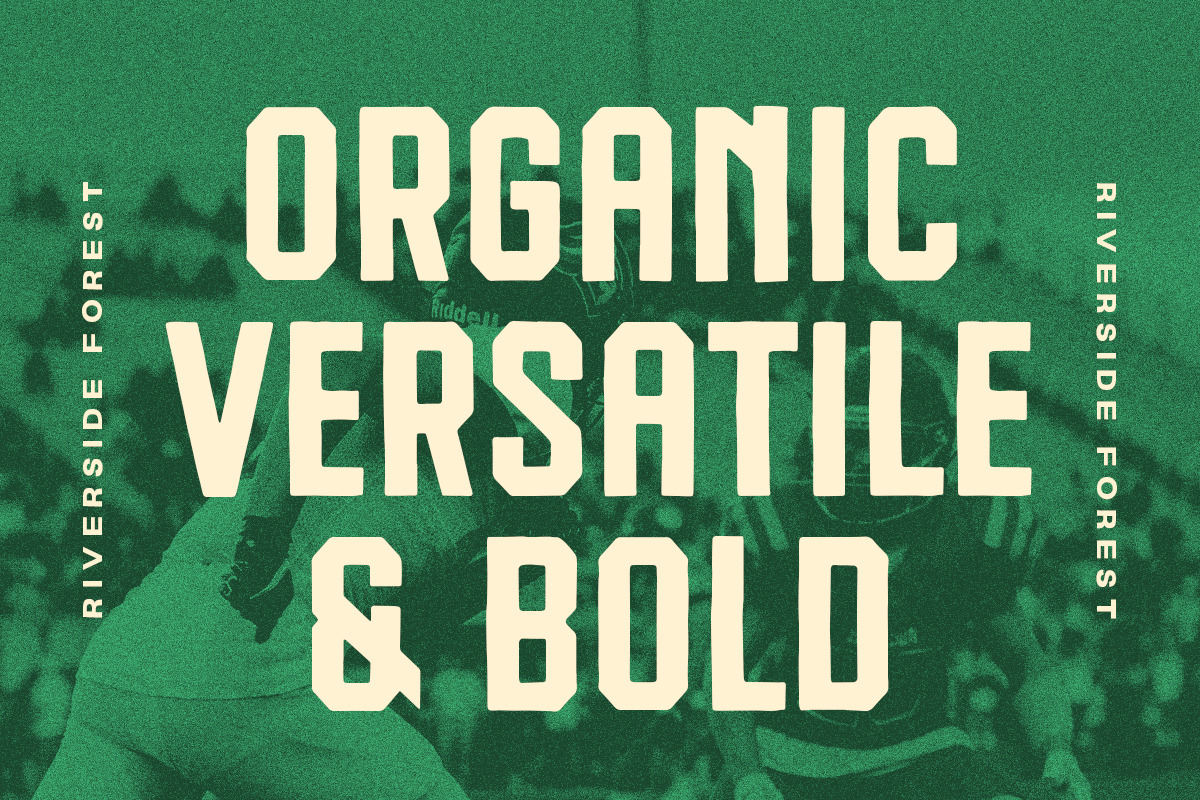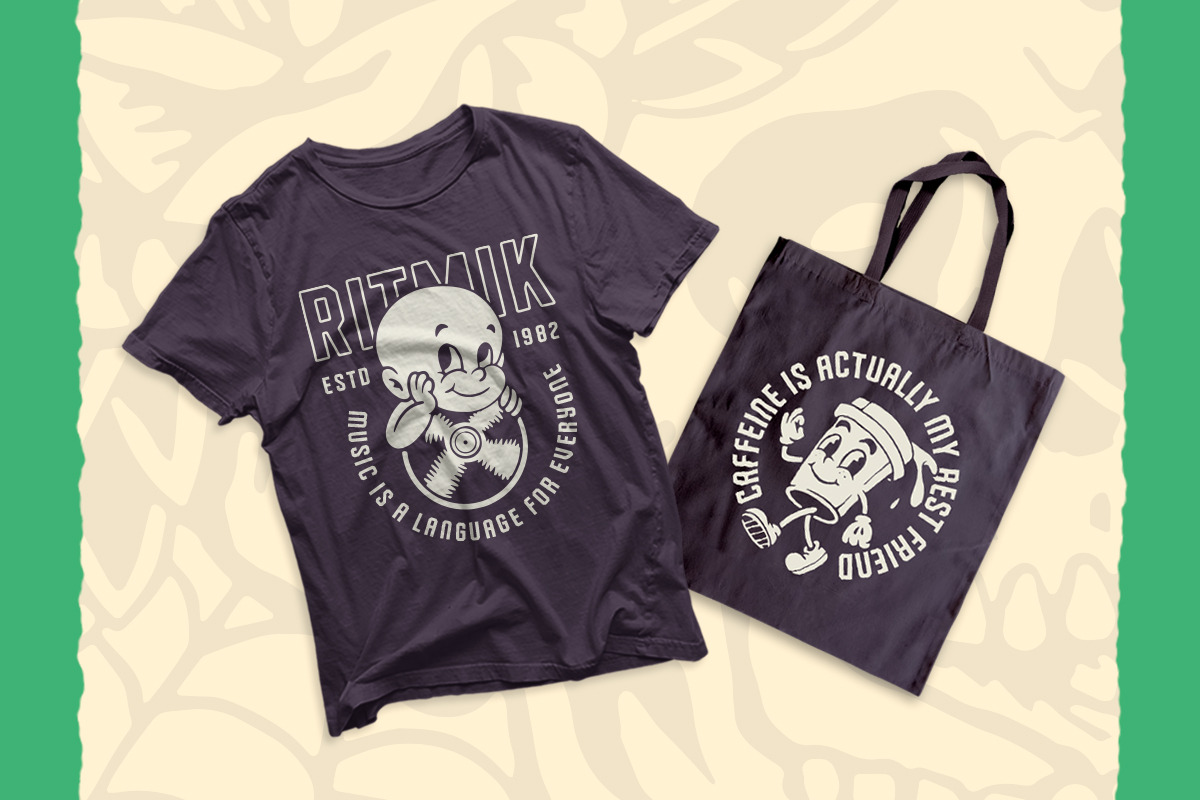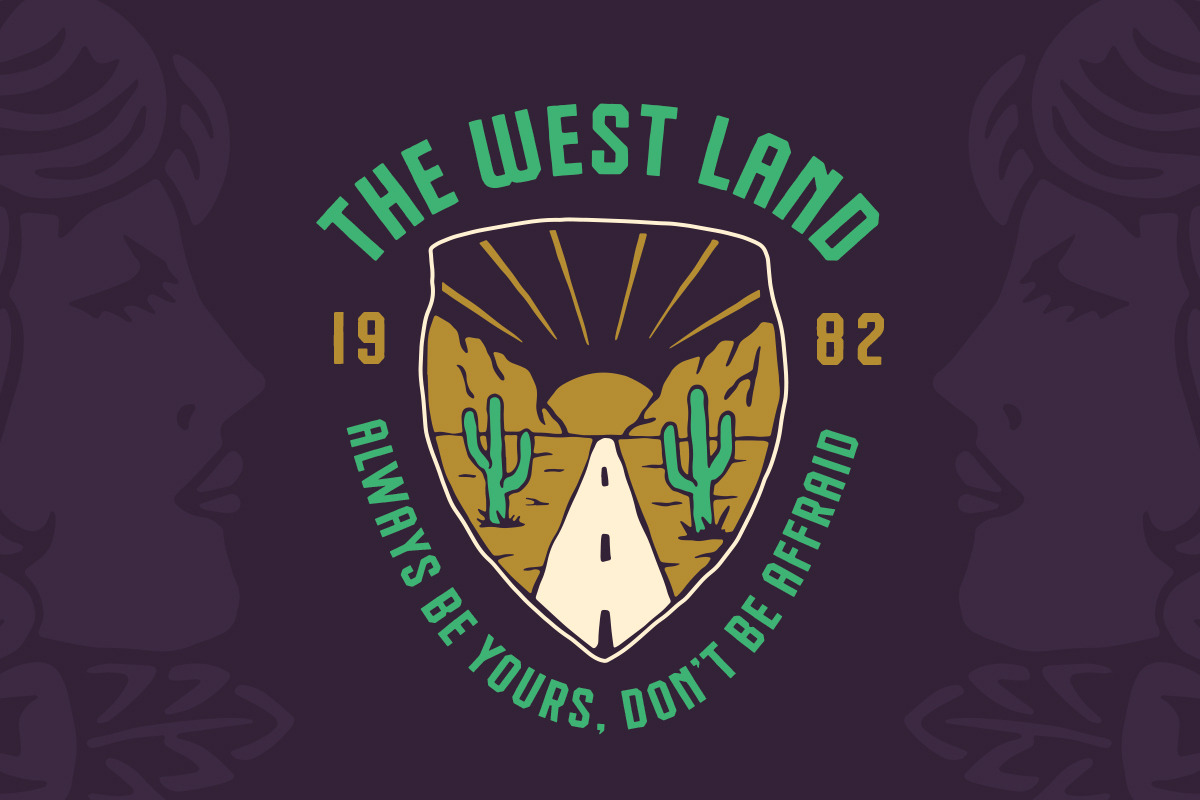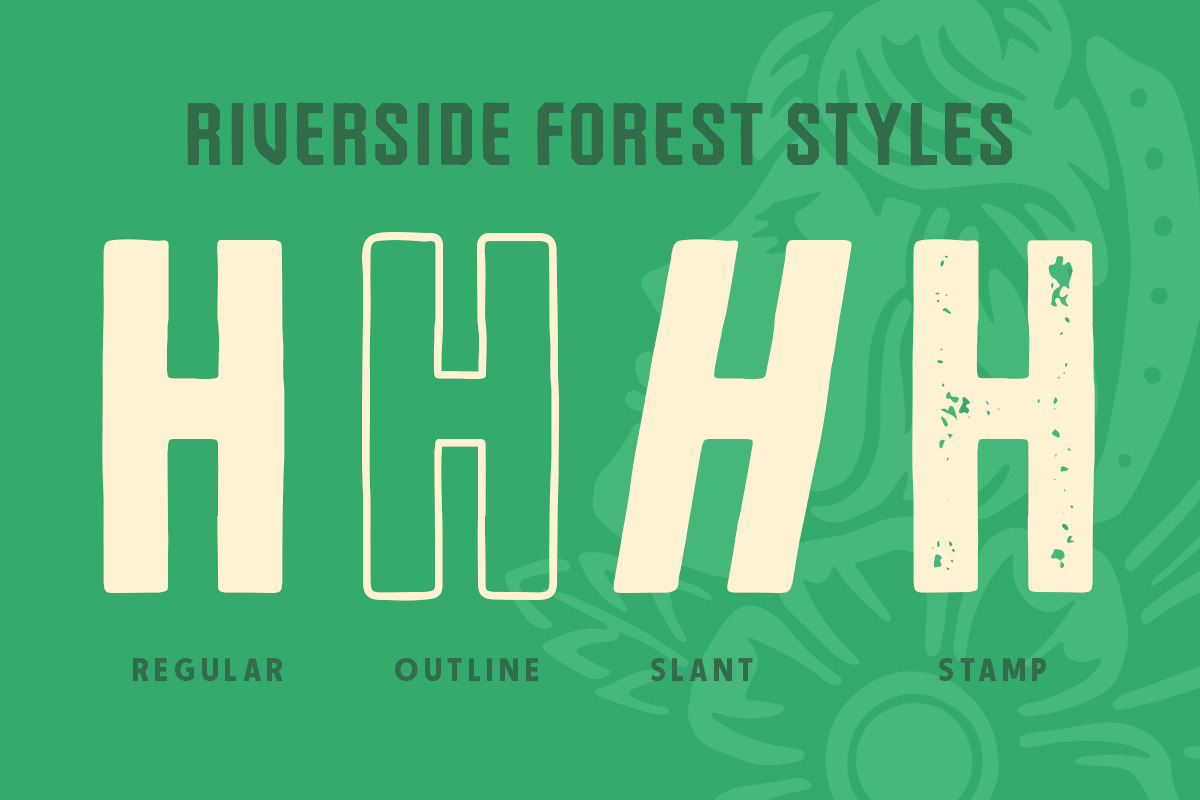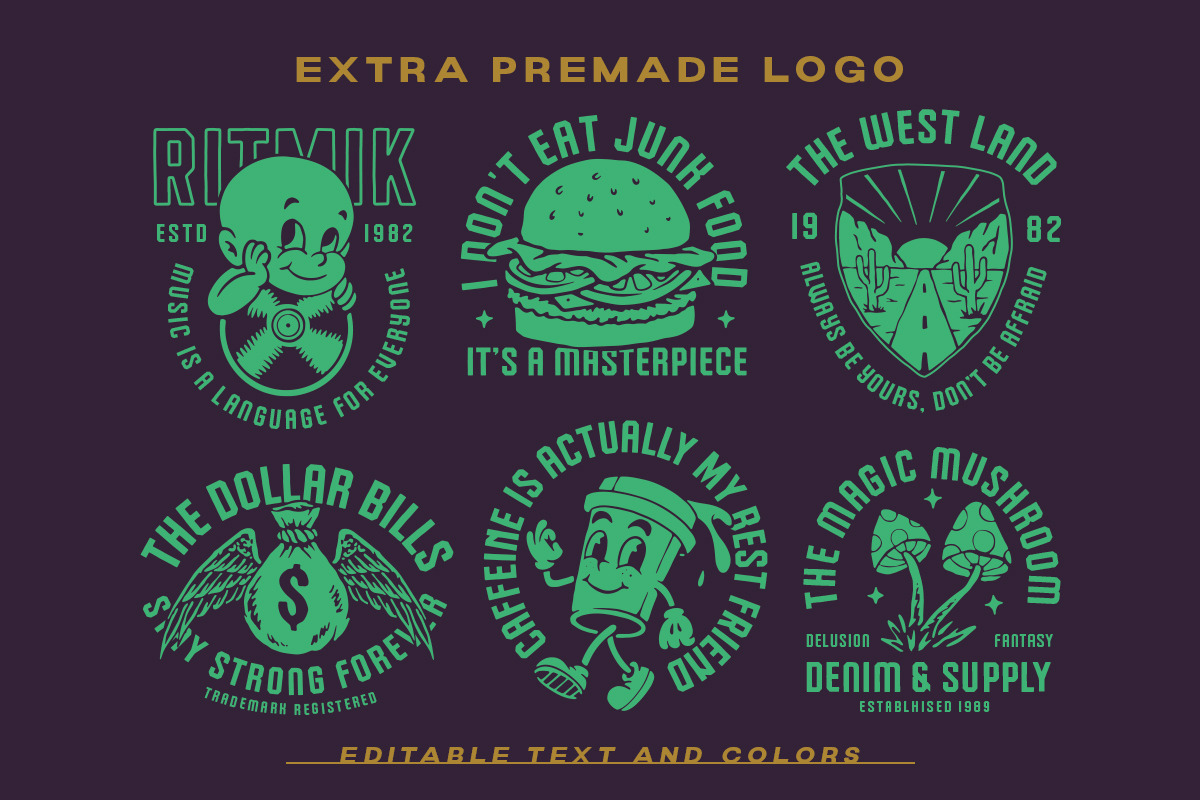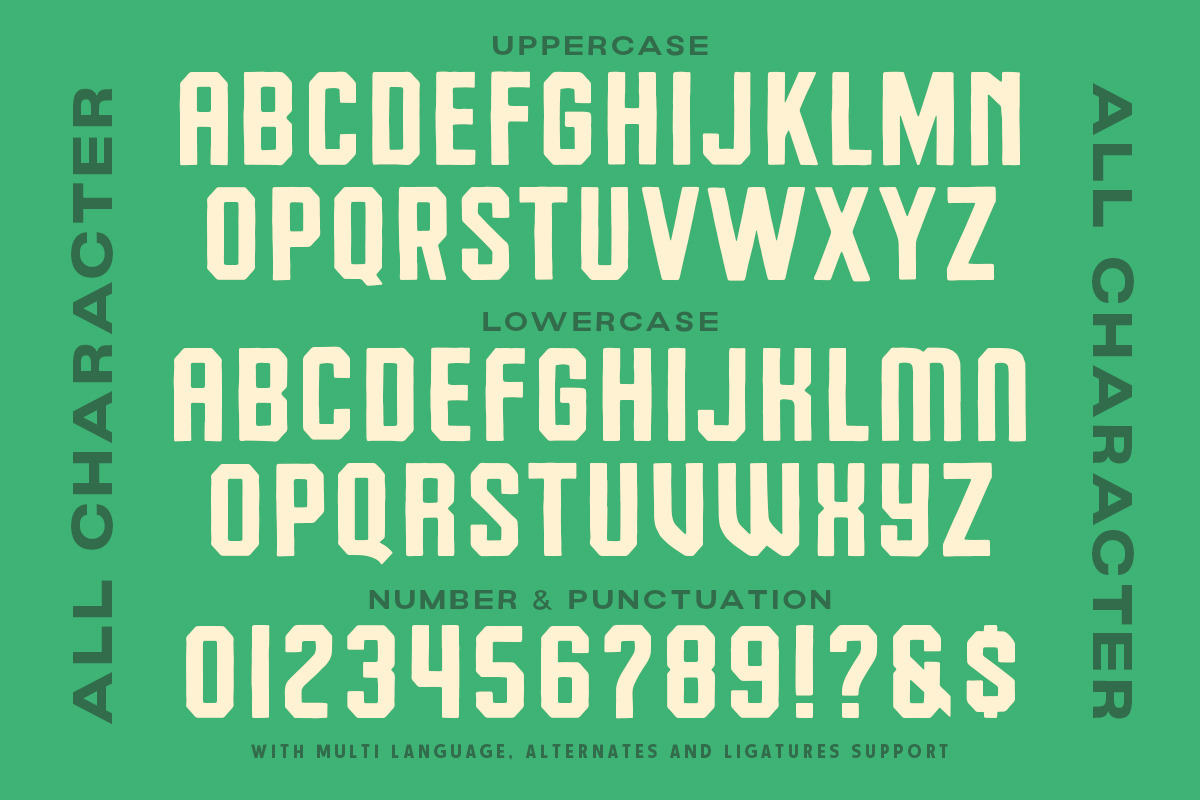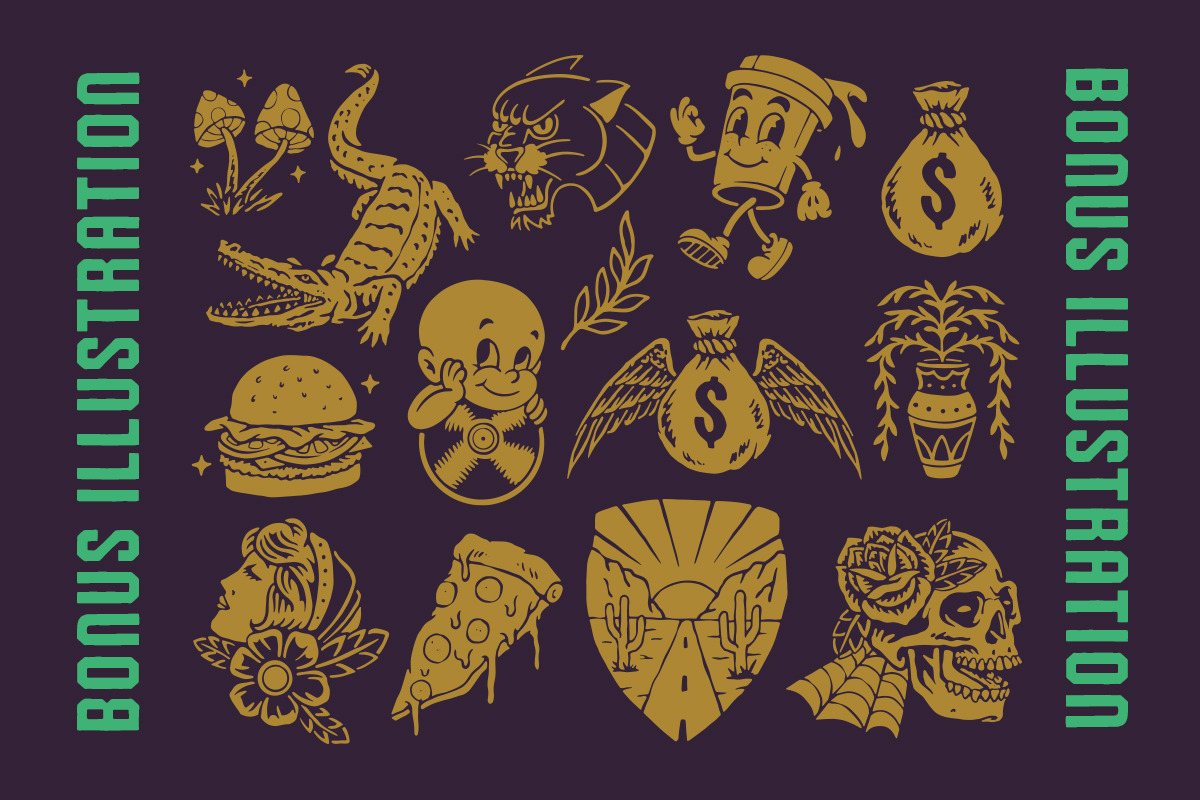
Riverside Forest - Organic Display
Introducing, Riverside Forest is a handrawn display font with organic looks. It comes with Bonus Illustration to play around with this font. This font perfectly made to be applied especially in logo, and the other various formal forms such as invitations, labels, logos, magazines, books, greeting / wedding cards, packaging, fashion, make up, stationery, novels, labels or any type of advertising purpose.